That’s why we made this curated list of our very own favourite Adobe Font combinations, so you can get inspired to start designing today without scouring through hundreds of thousands of fonts first.
We will cover which industries these font pairings would be best used for, and you’ll also find easy visual examples of what each font headline and paragraph look like.
From record stores to law firms, there’s a font for eeeverything and every industry or business niche. Let’s check it out!
Acumin & Orpheus
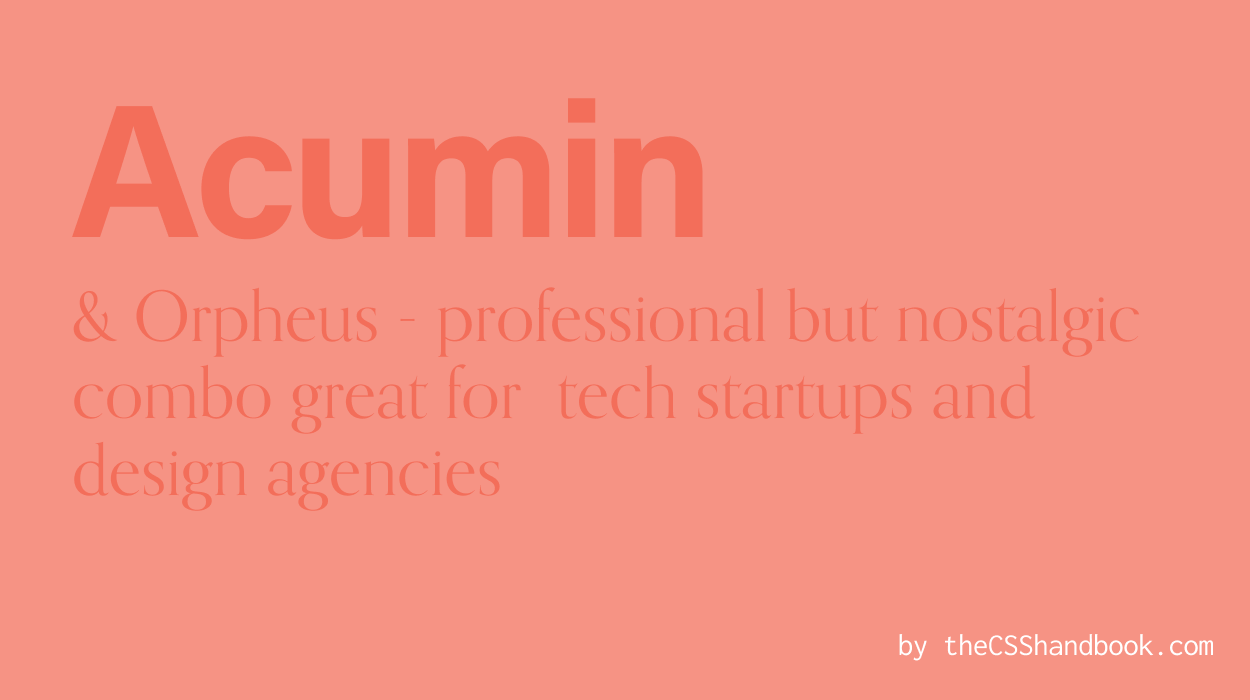
Acumin is like the Swiss Army knife of fonts - versatile and ready for any situation. This sans-serif typeface is perfect for a modern, minimalist brand. Pair it with Orpheus for a clean, professional look. It’s like a sleek, modern office with a vintage typewriter!
Orpheus & Proxima Nova
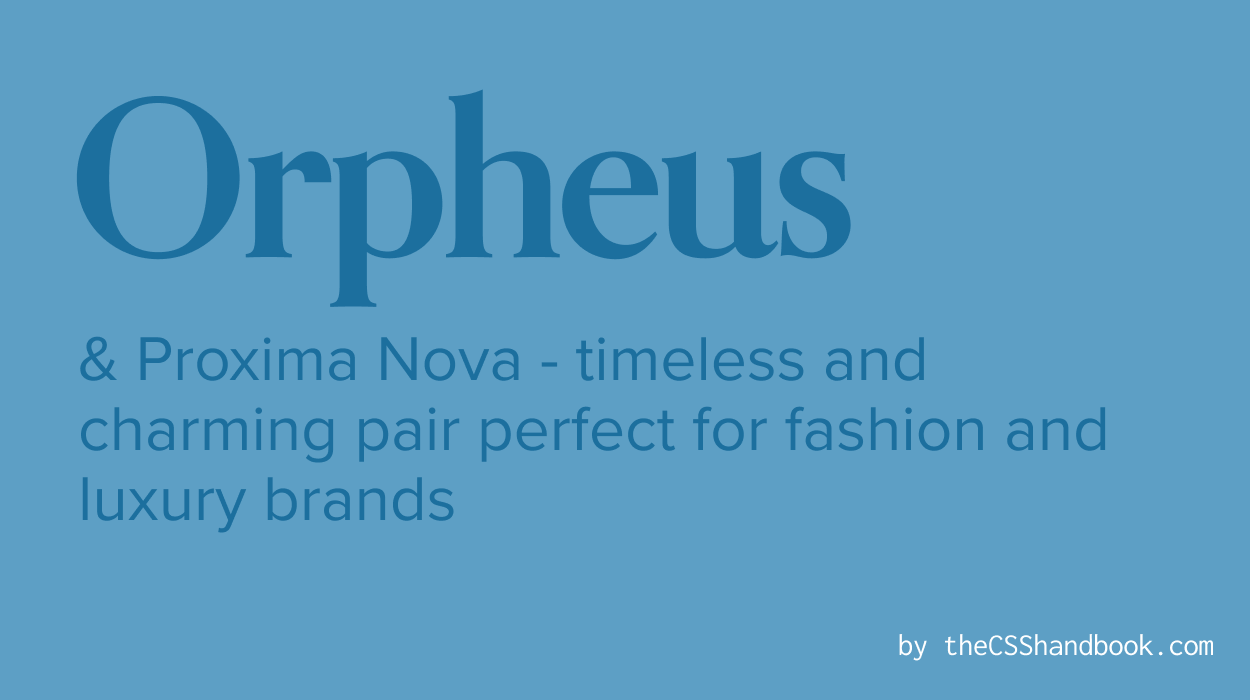
Orpheus is like that vintage leather jacket - timeless and always in style. It’s a thin serif font that’s ideal for fashion or luxury brands, it’s got that classic charm. Pair it with Proxima Nova and watch the magic happen!
DIN & Neue Haas Grotesk
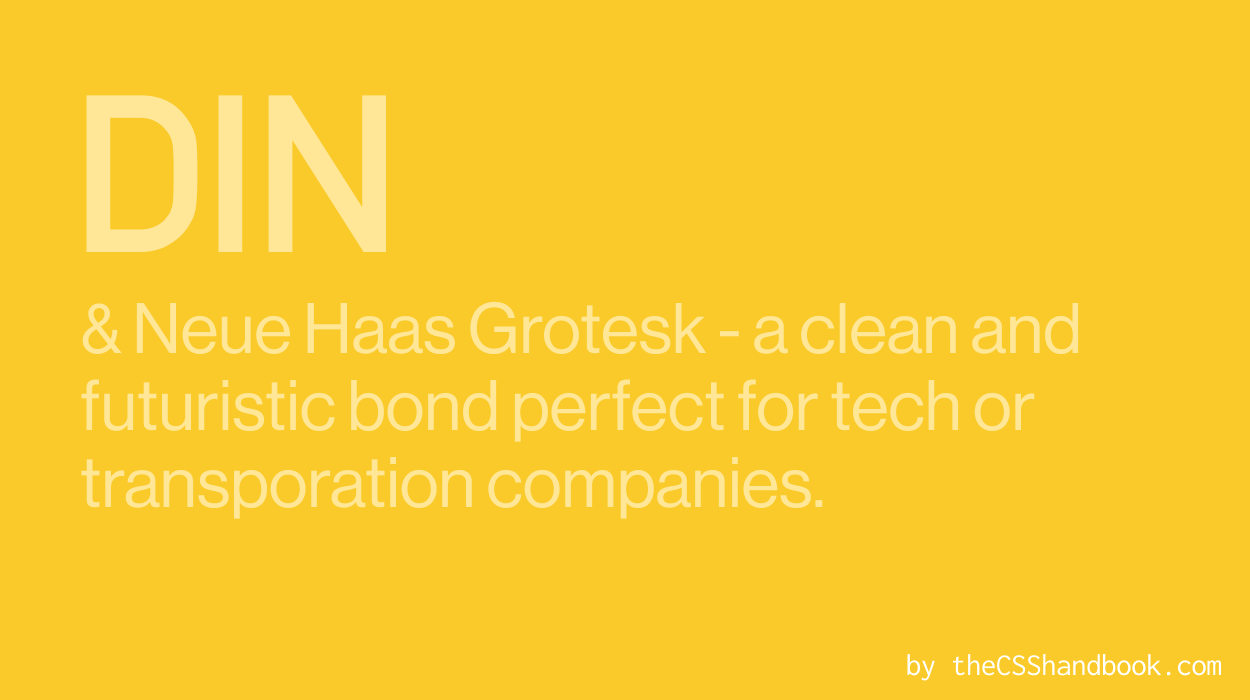
DIN is the tech guru of fonts - clean, geometric, and futuristic. It’s perfect for tech or transportation companies, giving off that innovative vibe. Pair it with Neue Haas Grotesk for a sleek, modern aesthetic.
Big Caslon & Neue Haas Grotesk
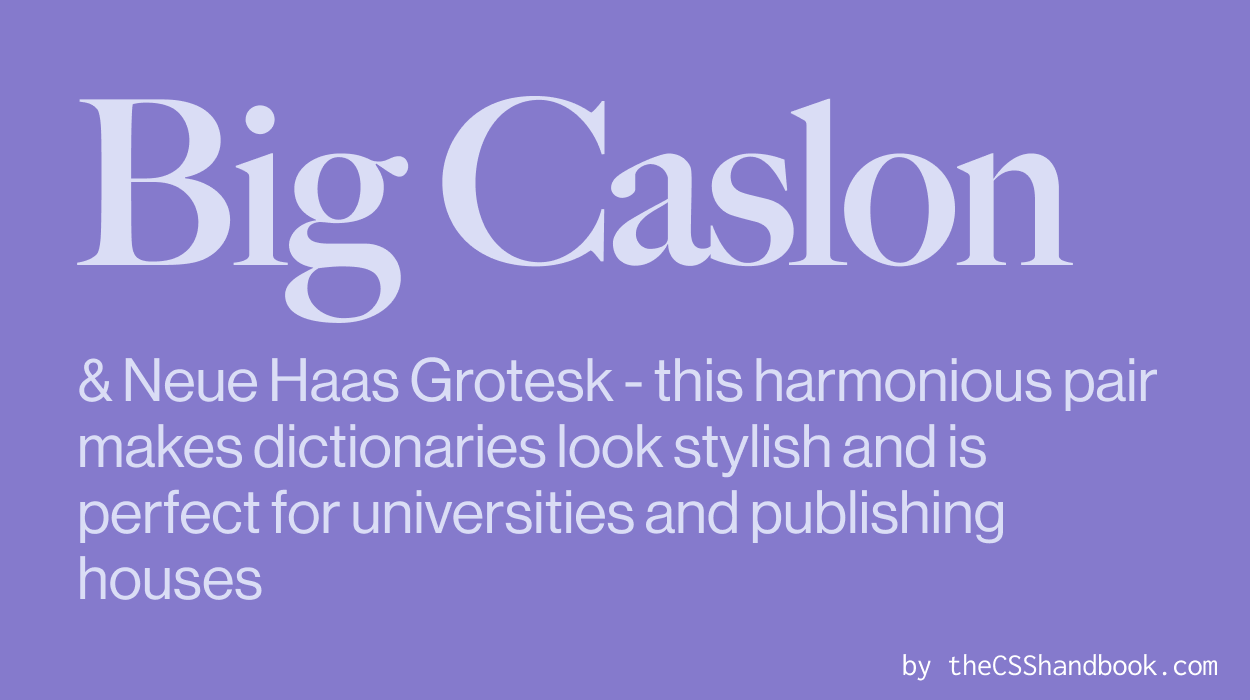
Big Caslon is like a fine wine - robust and full of character. This serif font is great for traditional or academic brands. Pair it with Neue Haas Grotesk for a balanced look. It’s like a historic library with modern art pieces!
Aktiv Grotesk Extended & Futura
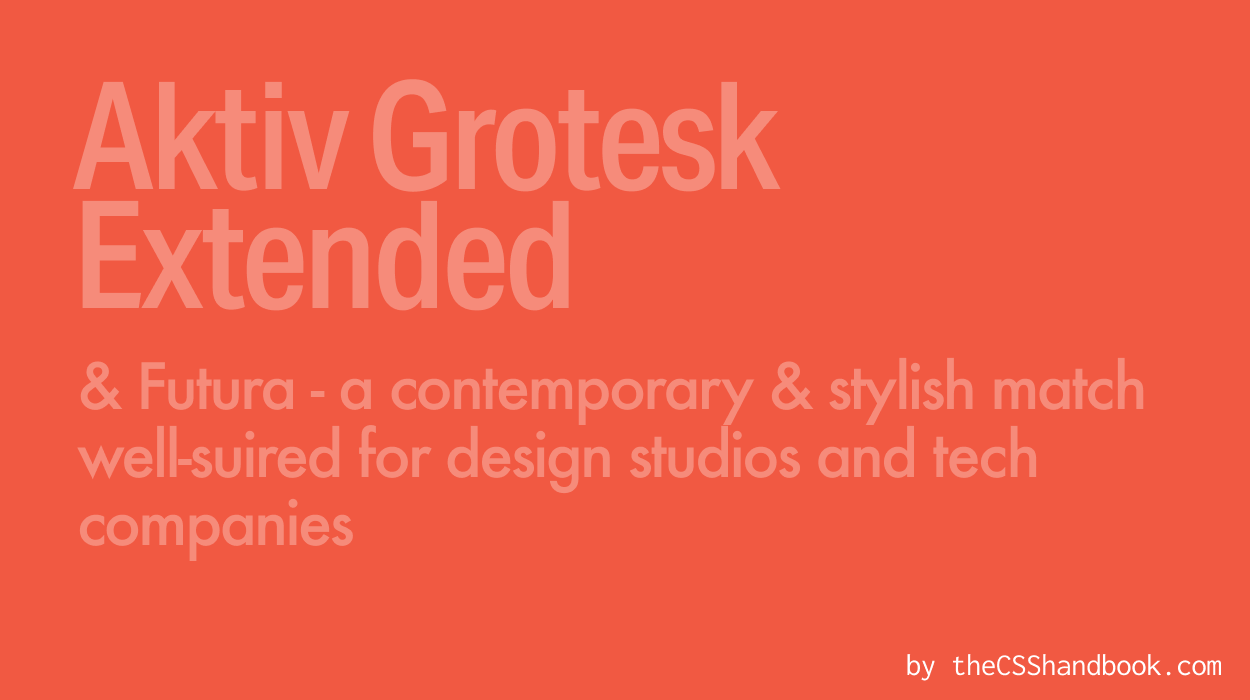
Aktiv Grotesk Extended is the trendsetter of fonts - contemporary and stylish. It’s perfect for creative or design-focused brands. Pair it with Futura for a harmonious look. It’s like a modern art gallery - sleek and stylish.
Lust & FF Tisa
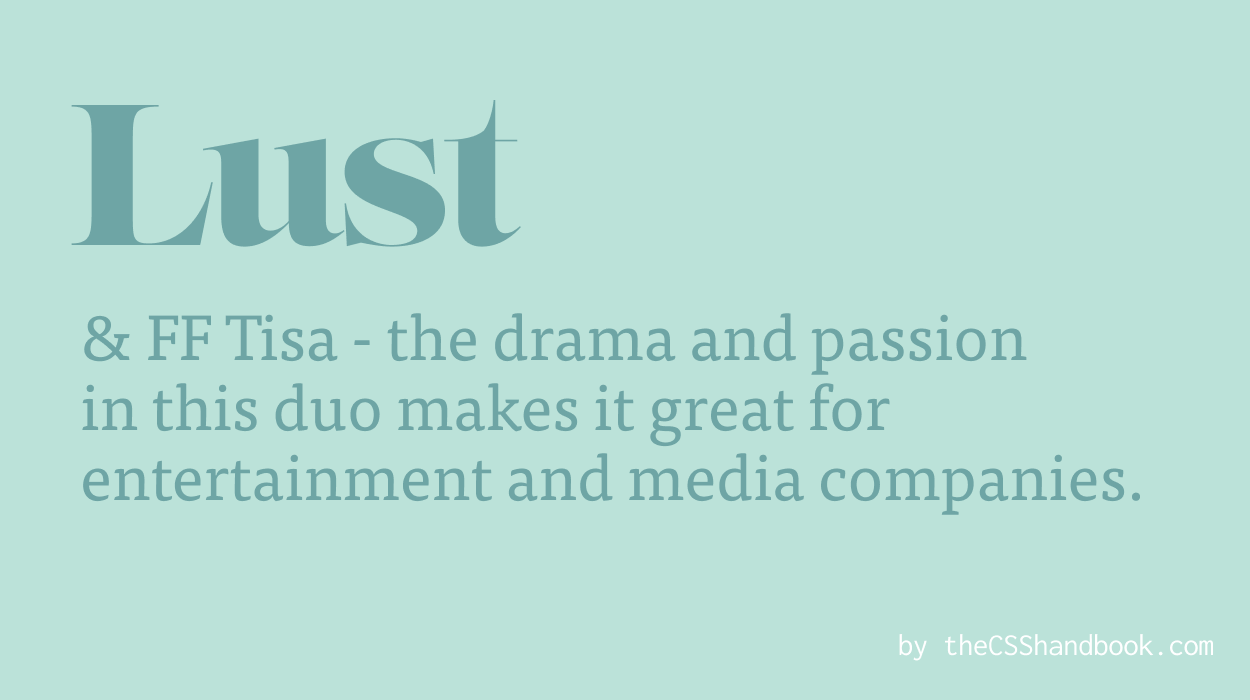
Lust is the drama queen of fonts - bold and passionate. It’s perfect for brands with a sexy, unapologetic aesthetic. Pair it with FF Tisa for a striking contrast. Use this sensual pair for feminine beauty brands or late night cafe menus.
Lapture & Franklin Gothic
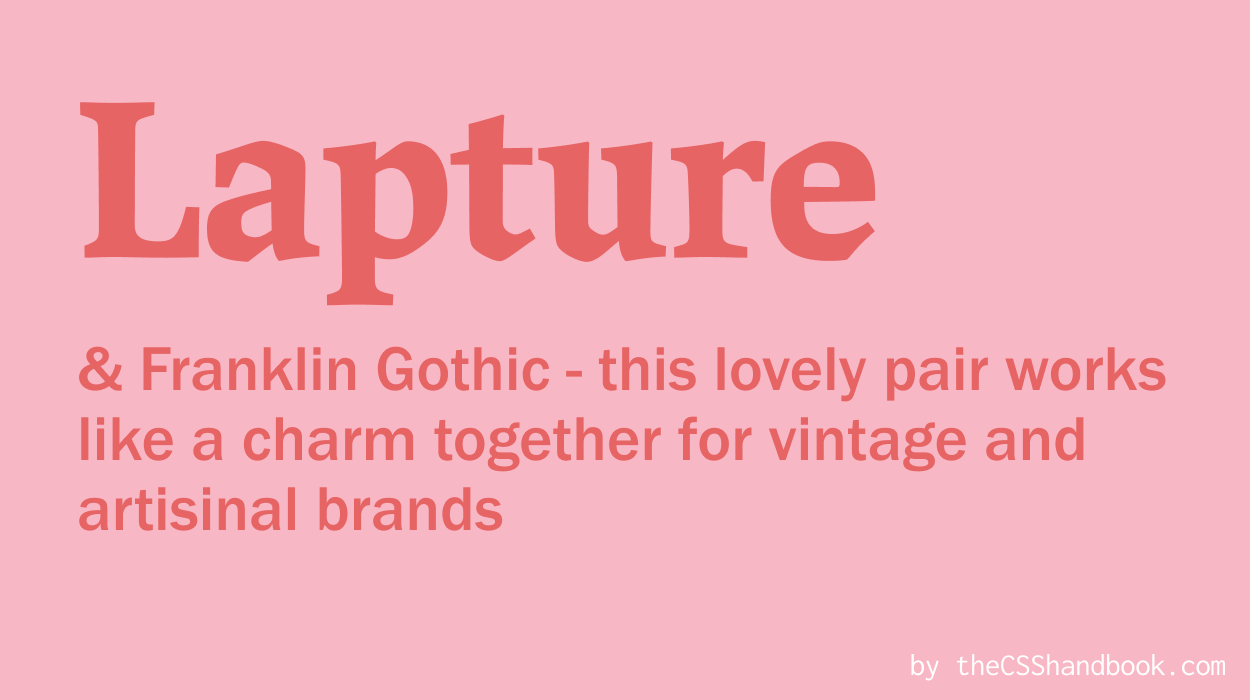
Lapture is the vintage charm of fonts - unique and artisanal. It’s perfect for brands with a classic or historical aesthetic. Pair it with Franklin Gothic for a balanced look. It’s like an antique shop in a modern city!
Brothers & Interstate
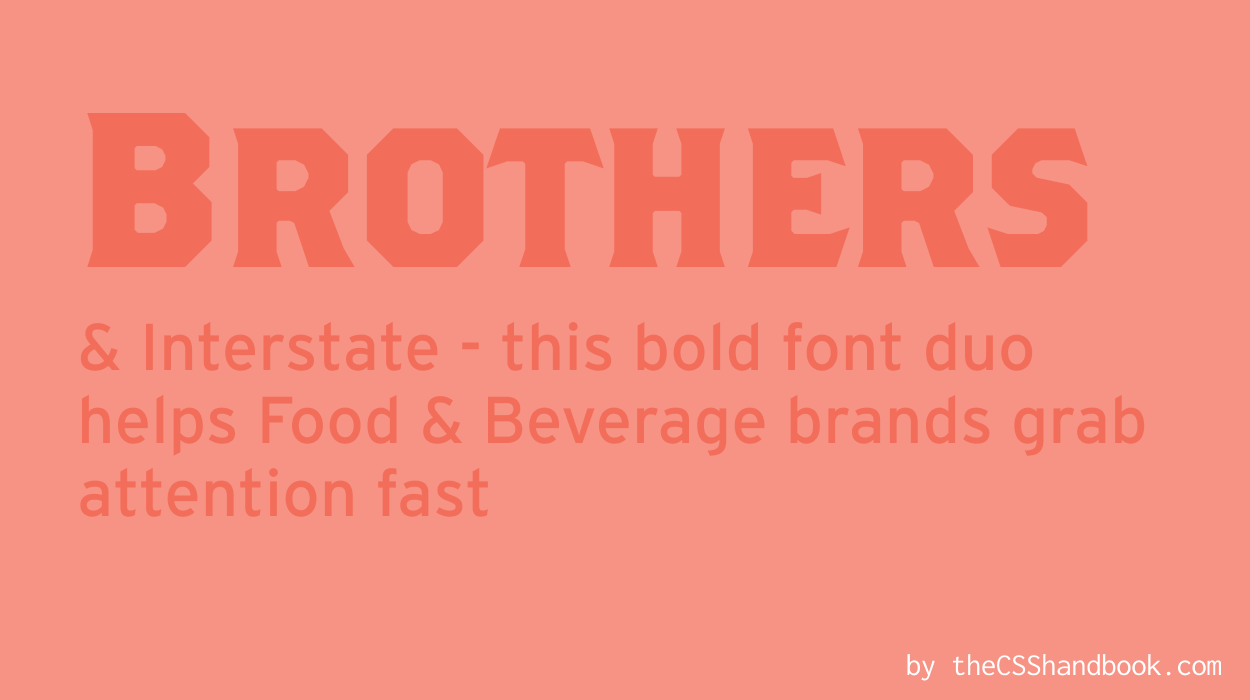
Brothers is the rockstar of fonts - bold and attention-grabbing. Pair it with Interstate for a dynamic look. From neon-lit burger joints to internationally-known soda drinks, this pair is perfect for entertainment or food and beverage brands.
Rift & Acumin pro
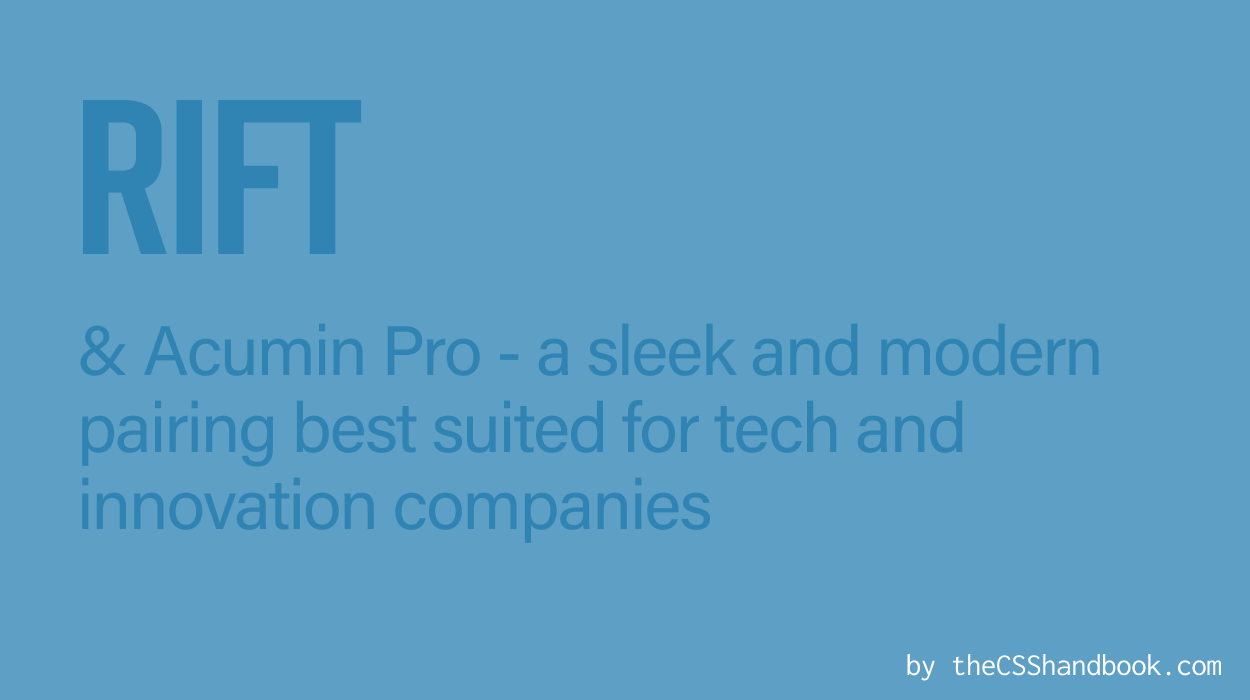
Rift is the futurist of fonts - sleek and forward-thinking. It’s perfect for tech or innovative brands. Pair it with Acumin Pro for a sleek, modern aesthetic. These fonts would be perfect to advertise a high-tech gadget in a minimalist home!
Benguiat Pro & Sofia Pro
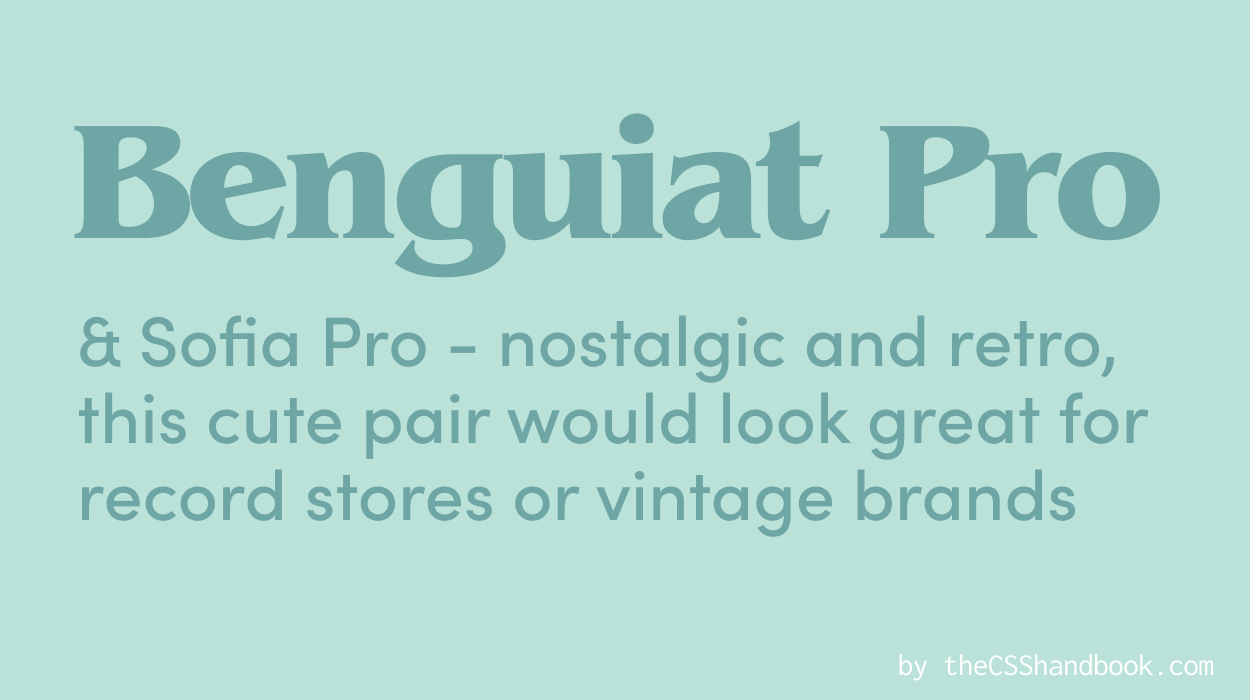
Benguiat Pro is the nostalgia of fonts - decorative and retro. It’s perfect for creative or retro-inspired brands. Pair it with Sofia Pro for a balanced look. It’s like a vintage record player spinning modern beats!
Termina & Futura
Termina is the powerhouse of fonts - strong and assertive. It’s perfect for brands with a strong, masculine aesthetic. Pair it with Futura for a balanced look. When using this pairing, think multinational corporations with towering offices.
Plantin & Minion
Plantin is the classic novel of fonts - traditional and reliable. It’s perfect for traditional or academic brands. Pair it with Minion for a harmonious look. It’s like a classic novel with a modern bookmark!
Franklin Gothic & Proxima Nova
Franklin Gothic is the journalist of fonts - timeless and trustworthy. It’s perfect for news or publishing brands. Pair it with Proxima Nova for a clean, professional look. It’s like reading a newspaper with a modern layout!
Baskerville & Mrs Eaves
Baskerville is as refined and elegant as an aristocrat. Luxury or high-end brands will find it a perfect fit. Pair it with Mrs Eaves for a sophisticated look. Think expensive boutiques on Rodeo Drive!
Sofia Pro & Roc Grotesk
Sofia Pro is like a soft breeze - light and friendly. Ideal for friendly, approachable brands, it pairs beautifully with Roc Grotesk. For this font pairing, think non-profits, health food stores and organic beauty products.
Antique Olive & Stratos
Antique Olive is the artisan of fonts - unique and creative. Creative or design-focused brands, this one’s for you. Pair it with Stratos for a dynamic look. It’s like a handcrafted piece of furniture in a modern apartment!
Mencken & ITC American Typewriter
Mencken is the chameleon of fonts - versatile and adaptable. Pair it with ITC American Typewriter for a vintage look. It’s a perfect match for a variety of creative brands.
Whether you’re working on a client branding project or your own website, don’t forget to keep exploring, keep experimenting, and most importantly, have fun with it. After all, in the realm of Adobe fonts, the possibilities are truly endless.